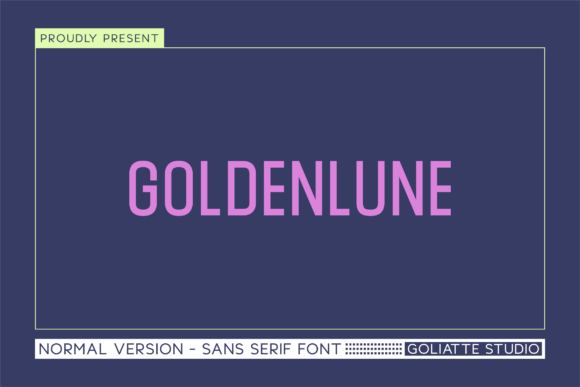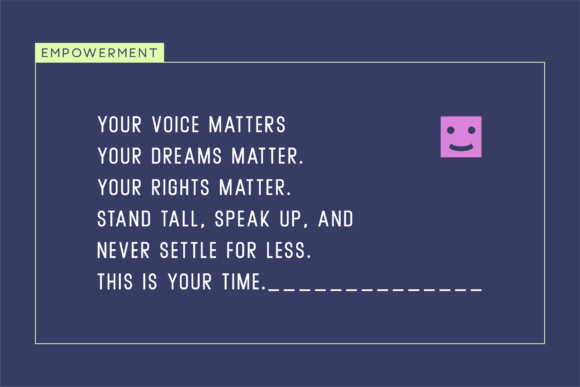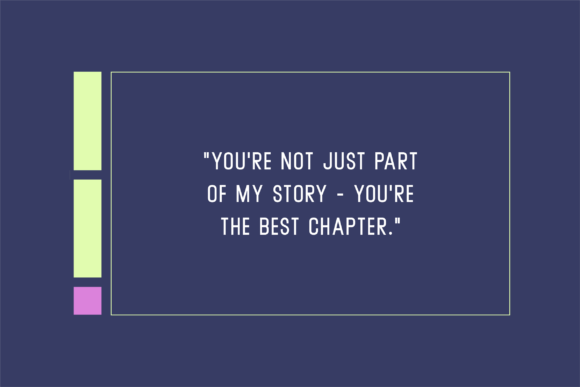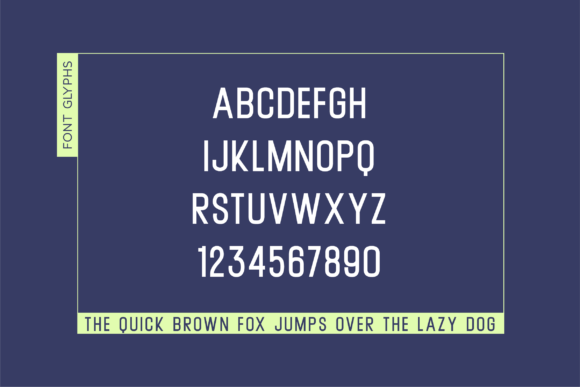
Goldenlune Font: Modern Sans Serif for Bold Branding & Logo Design
About the Goldenlune Font
Introducing the Goldenlune Font, a beautifully crafted typeface designed to elevate your creative projects. Introducing Goldenlune – A Modern Sans Serif Typeface
Goldenlune is a bold, all-caps sans serif font designed for the modern designer. With its clean lines and minimalist aesthetic, this typeface exudes strength and authority. It is perfect for projects that require a sense of professionalism and impact. Whether you’re designing a logo, website, or print material, Goldenlune makes a statement with its sharp, crisp edges.
The strong, geometric structure of Goldenlune ensures versatility, from digital interfaces to high-end branding. The all-caps design emphasizes clarity and readability, making it ideal for headlines, posters, and anywhere you need your message to stand out.
Features:
All-caps design for maximum impact
Modern, minimalist style with a focus on readability
Bold, clean lines for a confident and professional look
Ideal for branding, logos, packaging, and digital design
Perfect for both large-scale headlines and smaller text blocks
Goldenlune is perfect for brands, agencies, and designers looking to create a modern, authoritative identity. It’s especially suitable for tech companies, corporate branding, and luxury design projects where style and readability are paramount.
Stand out with Goldenlune – a typeface built to make an impression.
Goldenlune Font Usage Examples
Goldenlune Font Example